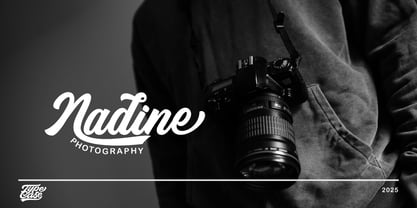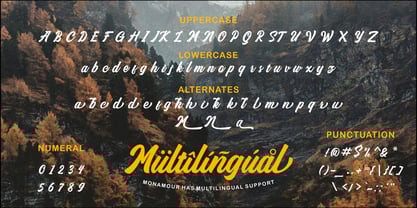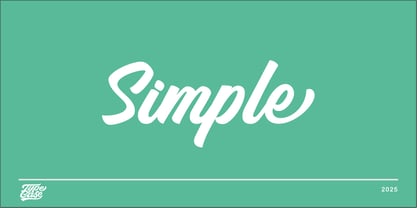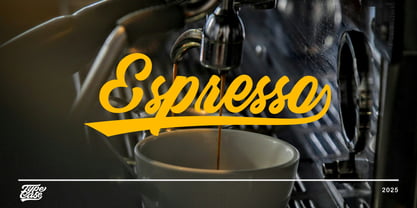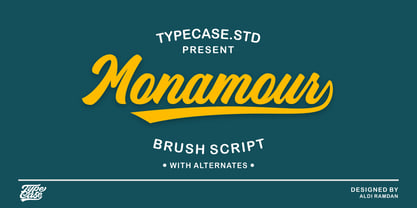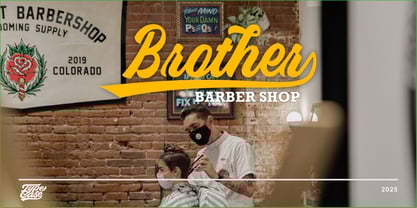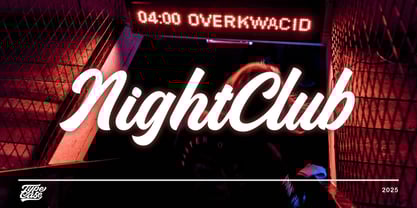
Monamour
by TypeCase.std
The Monamour Font Family was designed by Aldi Wangsadipa, ALDI RAMDAN and published by TypeCase.std. Monamour contains 1 styles. More about this family
Monamour is a gorgeous and bold handwritten font, crafted to give your headlines and logotype projects a retro touch. This font reads as strong, confident, and dynamic and can add tons of nostalgic character to your designs.
Designers: Aldi Wangsadipa, ALDI RAMDAN
Foundry: TypeCase.std